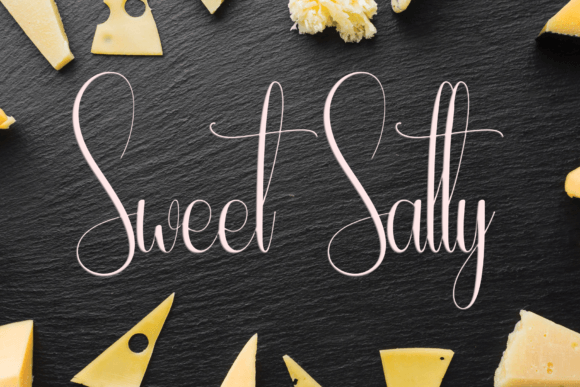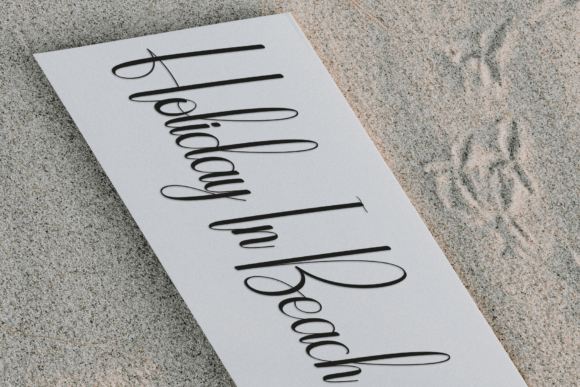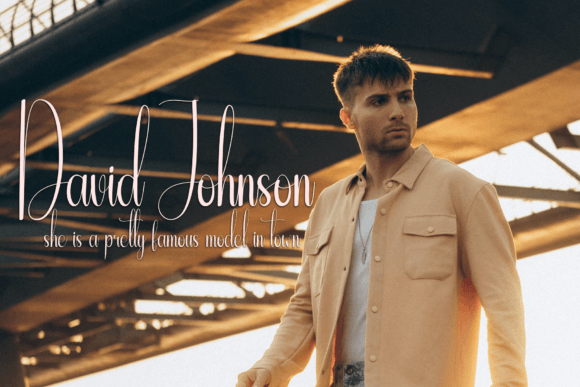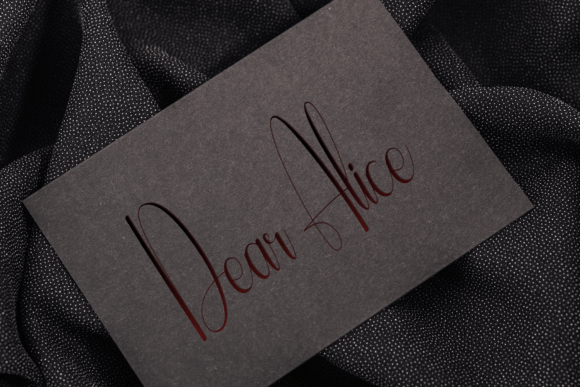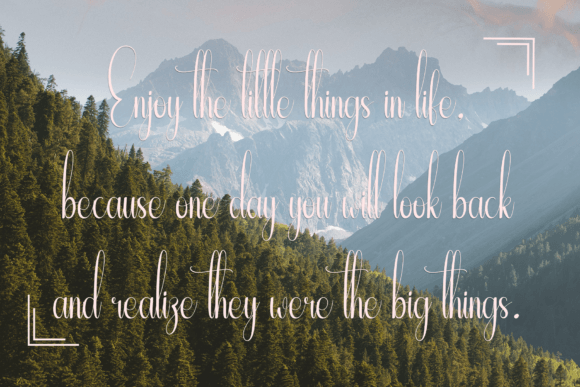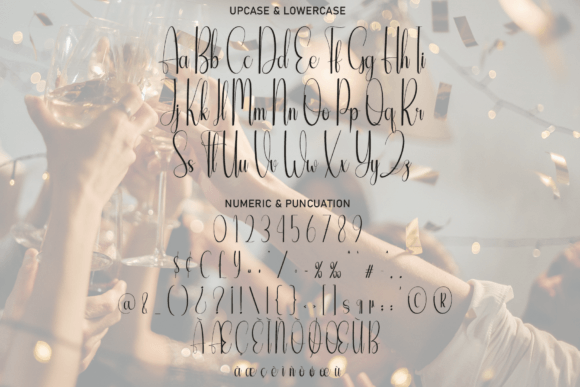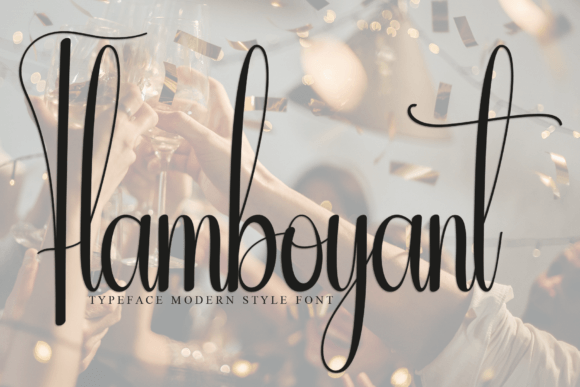
Introducing Flamboyant Font: The Sweet and Friendly Handwritten Font for Your Creative Projects
Are you looking for a font that can add a touch of personality and whimsy to your designs? Look no further than Flamboyant Font, a sweet and friendly handwritten font that’s perfect for a variety of creative projects. In this article, we’ll take a closer look at Flamboyant Font, its features, and how you can use it to elevate your designs.
What is Flamboyant Font?
Flamboyant Font is a beautiful, handwritten font that’s designed to bring a touch of fun and playfulness to your designs. With its fresh and neat appearance, this font is ideal for writing wedding invitations, cards, or any other design that might need a fun touch. Whether you’re a designer, crafter, or DIY enthusiast, Flamboyant Font is a great addition to your font collection.
Key Features of Flamboyant Font
So, what makes Flamboyant Font so special? Here are some of its key features:
- Sweet and Friendly Appearance: Flamboyant Font has a warm and inviting appearance that’s perfect for designs that require a personal touch.
- Handwritten Style: This font has a beautiful, handwritten style that’s perfect for adding a touch of personality to your designs.
- Fresh and Neat: Flamboyant Font is clean and easy to read, making it perfect for use in a variety of designs, from wedding invitations to social media graphics.
- Versatile: This font can be used for a wide range of designs, from formal to informal, and is perfect for adding a touch of whimsy to your projects.
Uses for Flamboyant Font
So, how can you use Flamboyant Font in your designs? Here are some ideas to get you started:
- Wedding Invitations: Flamboyant Font is perfect for wedding invitations, adding a touch of romance and whimsy to your designs.
- Greeting Cards: This font is also great for greeting cards, adding a personal touch to your messages.
- Social Media Graphics: Flamboyant Font can be used to create fun and engaging social media graphics, from Facebook posts to Instagram stories.
- DIY Projects: This font is perfect for DIY enthusiasts, adding a touch of personality to your craft projects, from scrapbooking to journaling.
Tips for Using Flamboyant Font
Here are some tips for using Flamboyant Font in your designs:
- Pair with Other Fonts: Flamboyant Font can be paired with other fonts to create a unique and interesting design.
- Experiment with Colors: This font looks great in a variety of colors, so don’t be afraid to experiment and find the perfect color for your design.
- Use in Combination with Images: Flamboyant Font can be used in combination with images to create a visually appealing design.
Flamboyant Font is a sweet and friendly handwritten font that’s perfect for adding a touch of personality to your designs. With its fresh and neat appearance, this font is ideal for a variety of creative projects, from wedding invitations to social media graphics. Whether you’re a designer, crafter, or DIY enthusiast, Flamboyant Font is a great addition to your font collection.
So why not give Flamboyant Font a try? With its versatility and whimsical appearance, it’s sure to become a favorite in your font collection.